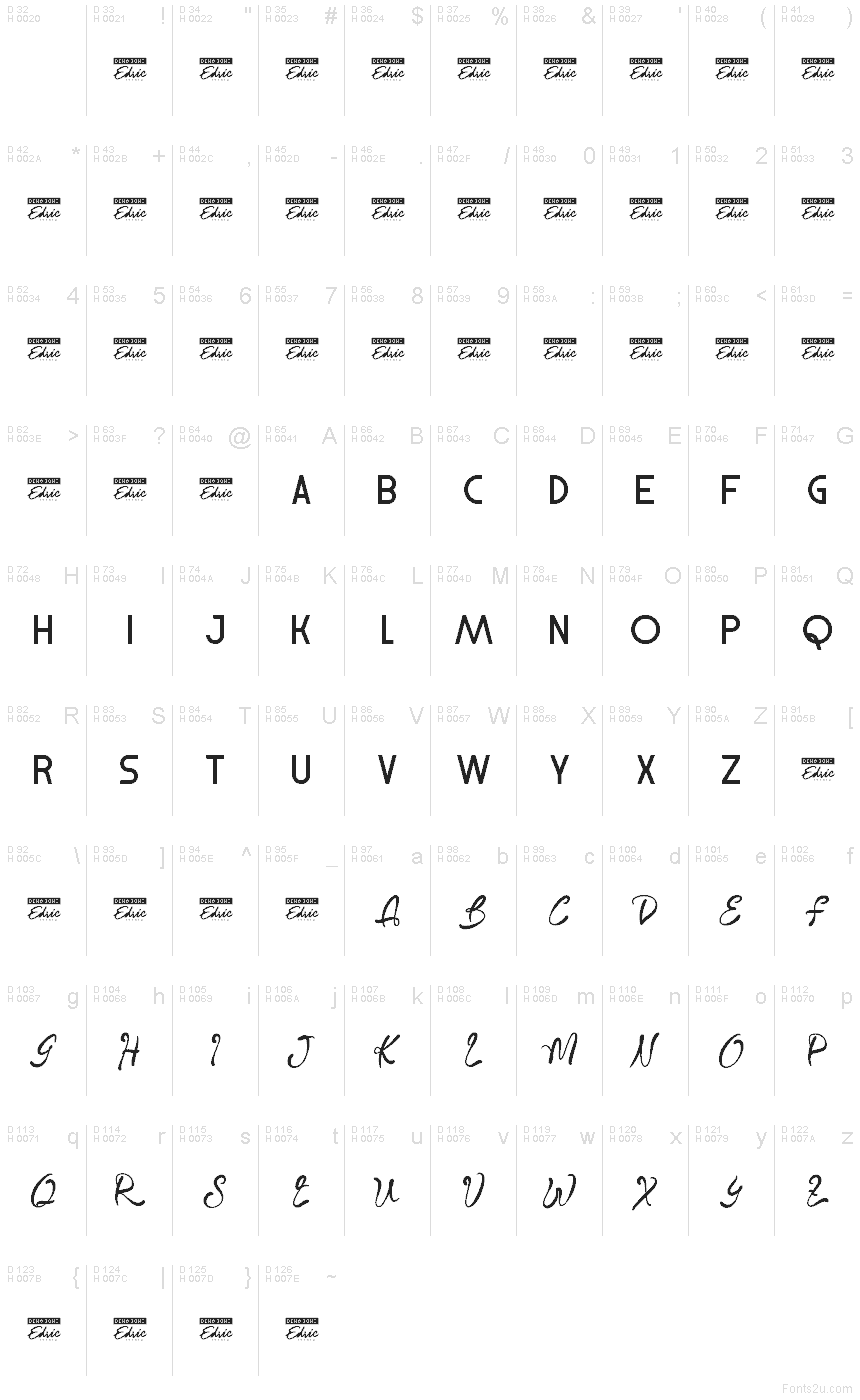
TheMusicDemo
TheMusic font by Edric Studio is a free decorative display font that turns letterforms into lyrical gestures. Built around playful, music-inspired swashes, its strokes swing from slim to bold like notes on a staff, with curly flourishes that feel hand-inked and lively. The rhythm is upbeat and legible, giving headlines a melodic lift without slipping into chaos.
Using TheMusic, your titles practically dance—great for concert posters, album covers, music school flyers, kids’ activity sheets, event branding, and YouTube thumbnails. This free font shines at larger sizes where its loops can breathe; pair it with a clean geometric sans for body copy to keep the tune clear.